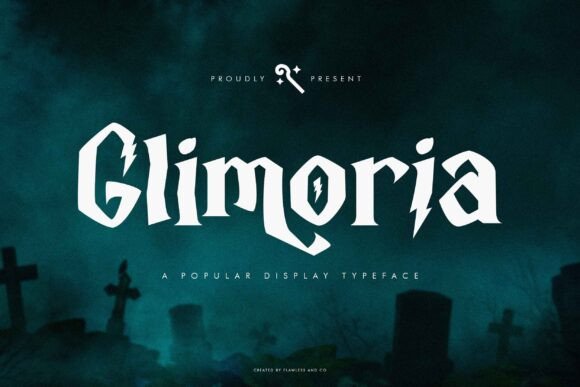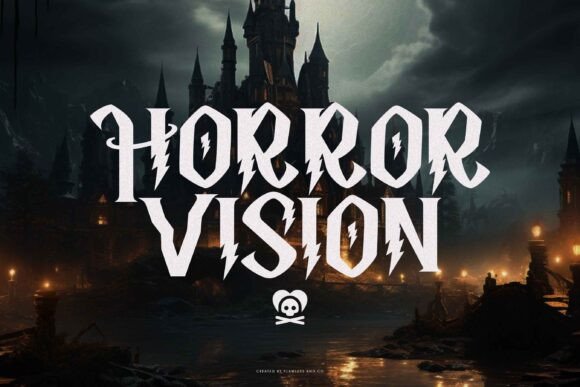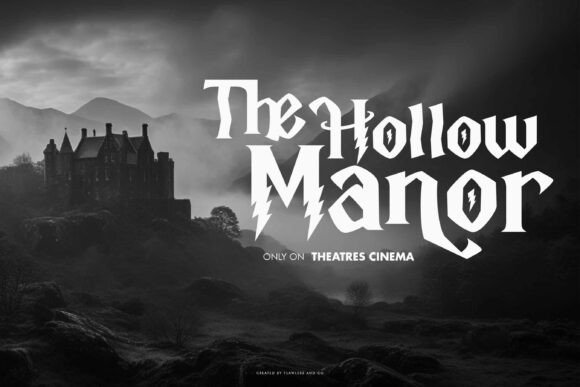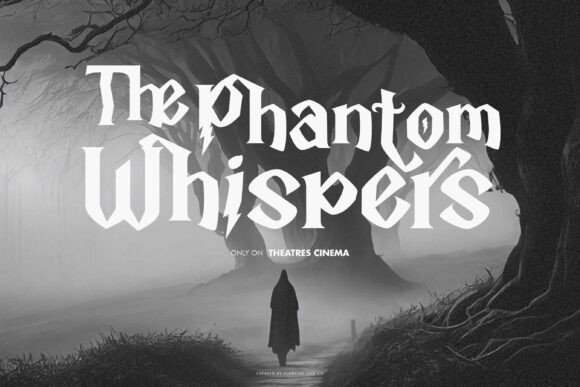
Glimoria Font: Eerie Display Font for Spooky Titles & Halloween Designs
About the Glimoria Font
Explore the possibilities with Glimoria Font, a font that offers both beauty and functionality. Glimoria is a horror display font that brings a spine-chilling and eerie vibe to your designs. With its sharp edges and haunting aesthetic, this font is suitable for horror movie posters, Halloween-themed designs, spooky invitations, thriller book covers, gaming titles, and eerie branding projects. Its unsettling yet captivating look will instantly set the perfect dark atmosphere.
Glimoria’s strong, angular forms make it ideal for headlines, short impactful statements, and logos requiring a bold, unsettling presence. Avoid using it for body text or extended reading; its highly stylized nature hinders readability in smaller sizes or longer passages. It’s also unsuitable for user interfaces where clarity and legibility are paramount.
Its core personality is undeniably bold and menacing. Brands targeting horror, thriller, dark fantasy, or occult themes will find it highly effective. Consider pairing Glimoria with a clean, geometric sans-serif like Montserrat for contrast in branding materials or a classic serif like Garamond for a sophisticated, yet unsettling juxtaposition on book covers.
For a more playful, yet still dark, feel, a rounded, slightly mischievous script font like Pacifico could work well, softening Glimoria’s harsh edges in limited applications. Remember to maintain sufficient spacing to prevent visual clutter.
Glimoria Font Usage Examples
Glimoria Font Example